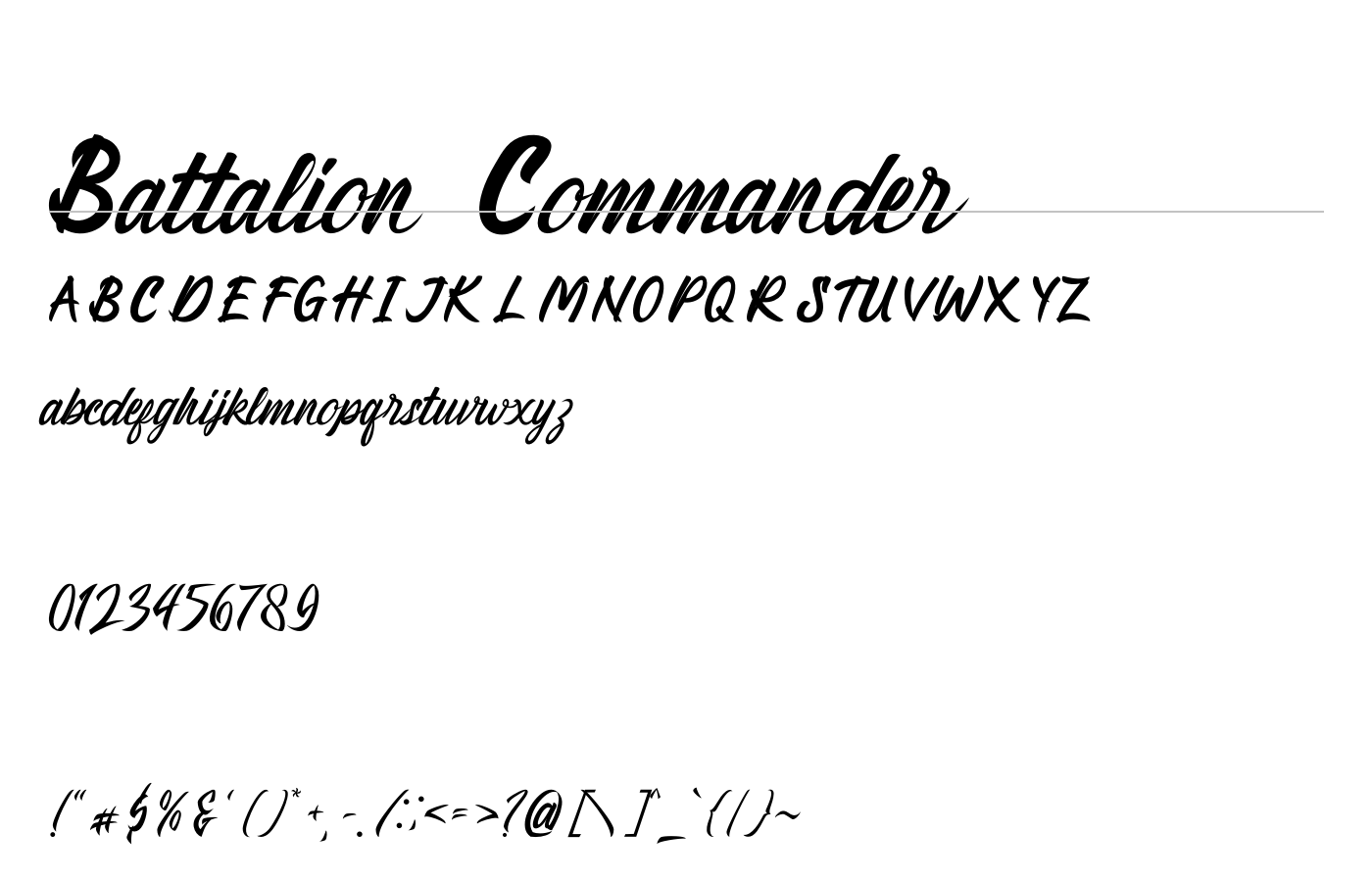
Battalion Commander is a stylish script font featuring a bold, flowing design with smooth, sharp strokes that evoke a sense of elegance and authority. Its high contrast and distinctive letterforms give it a commanding presence, making it a great choice for logos, headlines, and branding where a sophisticated yet assertive look is desired. This font works well for fashion, luxury products, or any design that benefits from a strong, refined handwritten feel.
Battalion Commander Font
About Battalion Commander Font